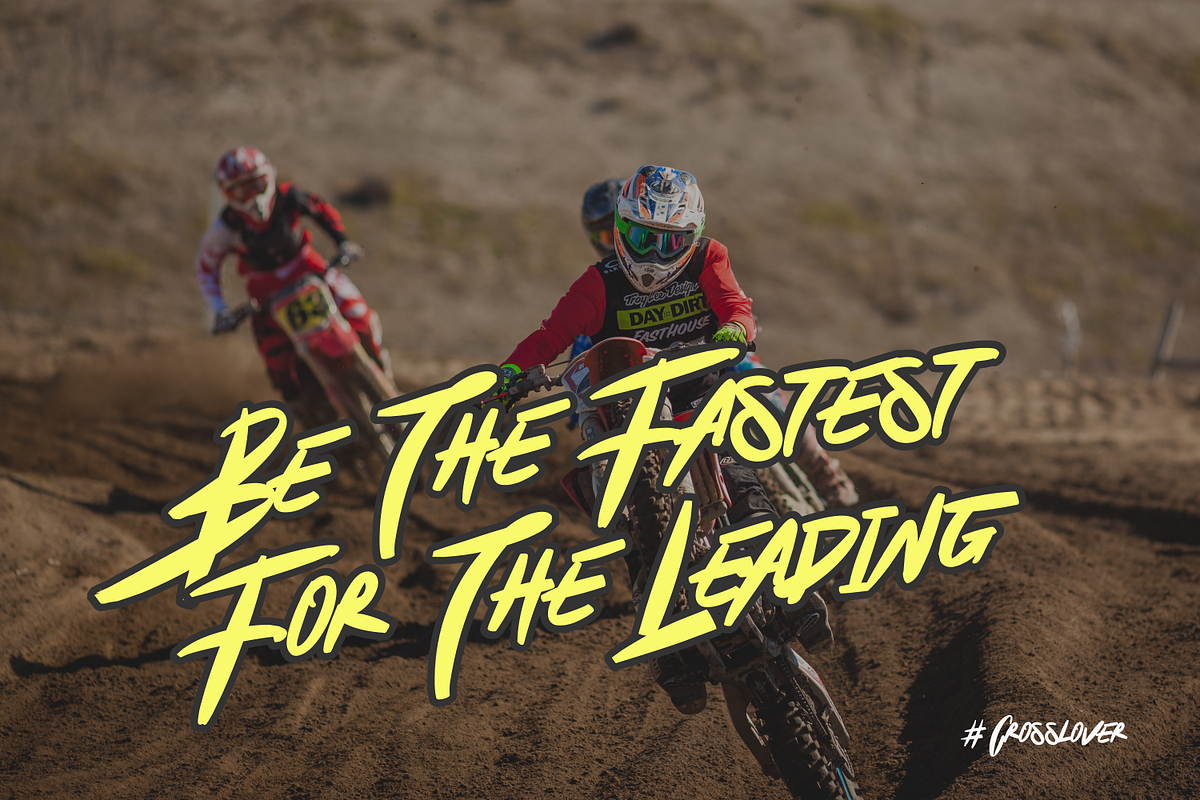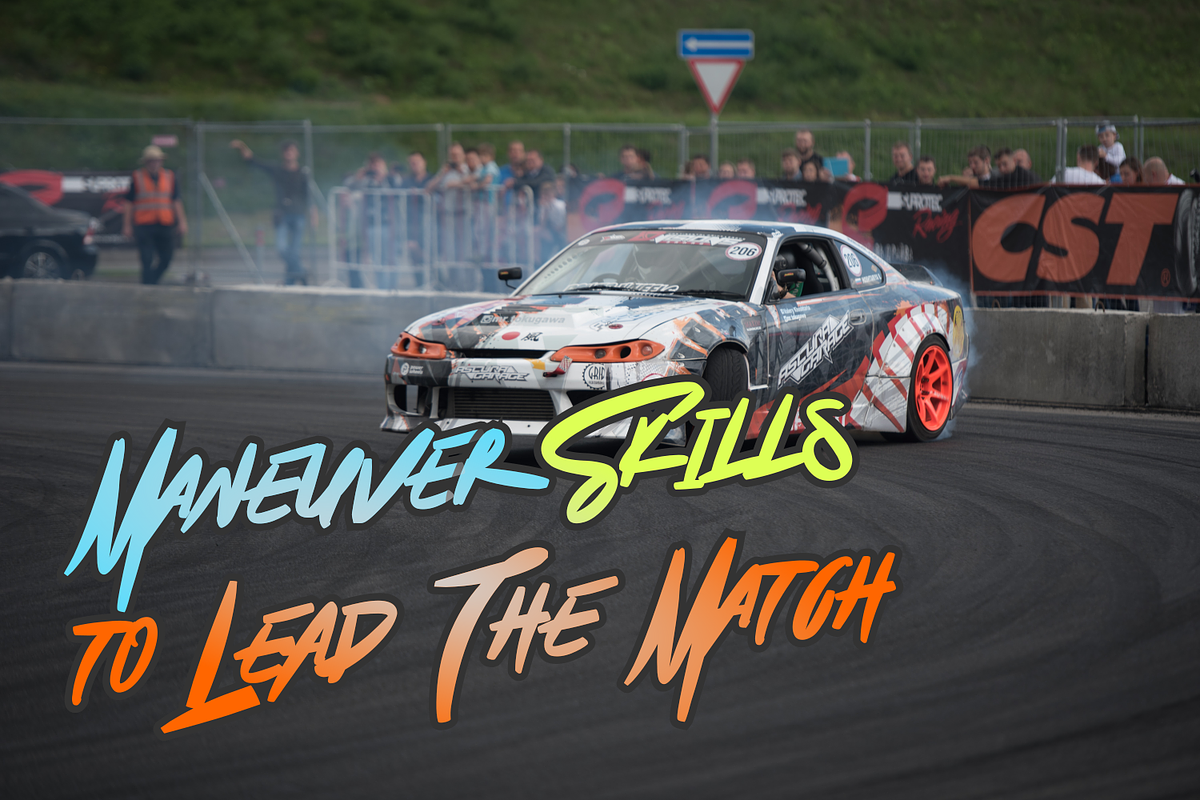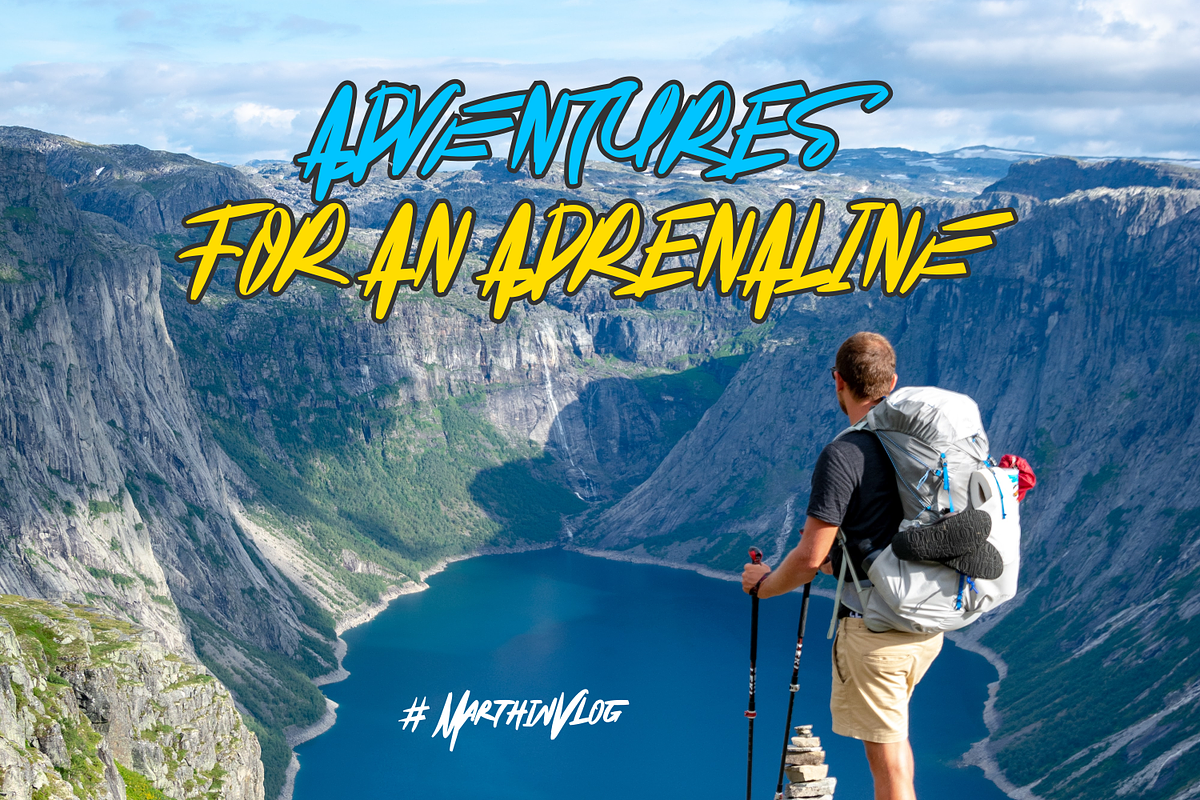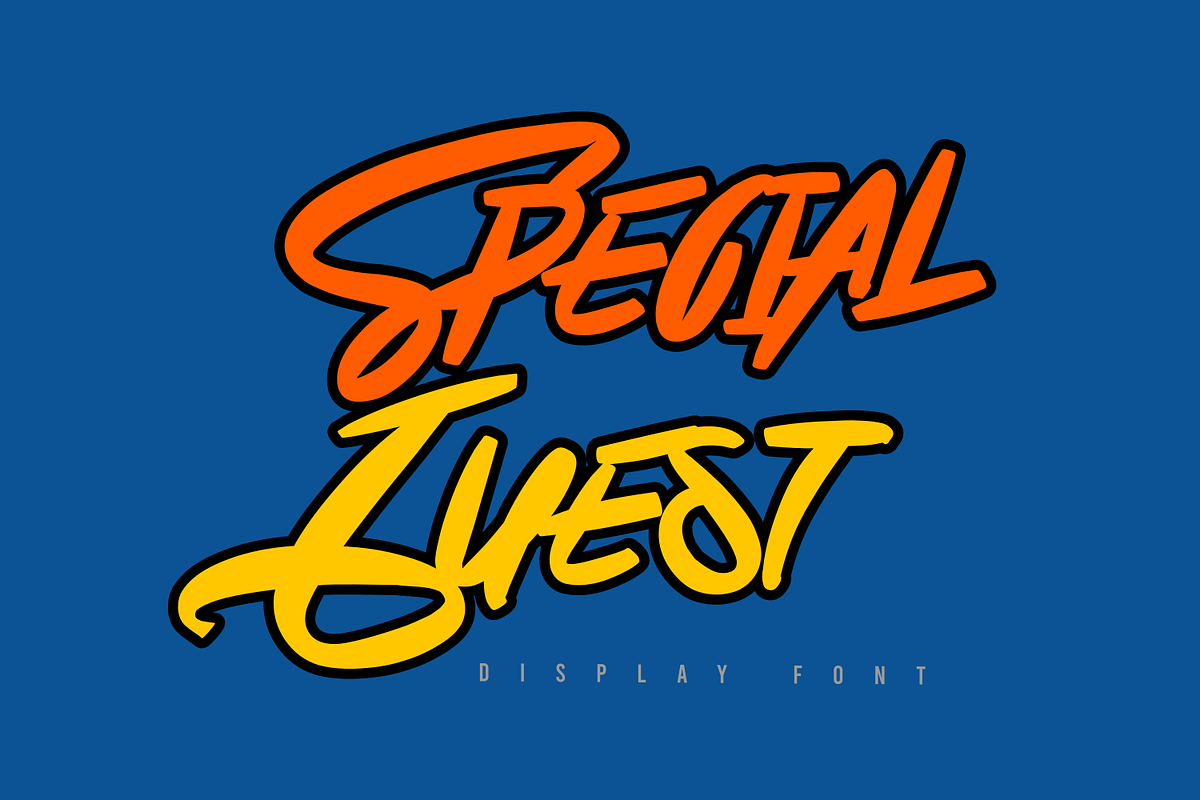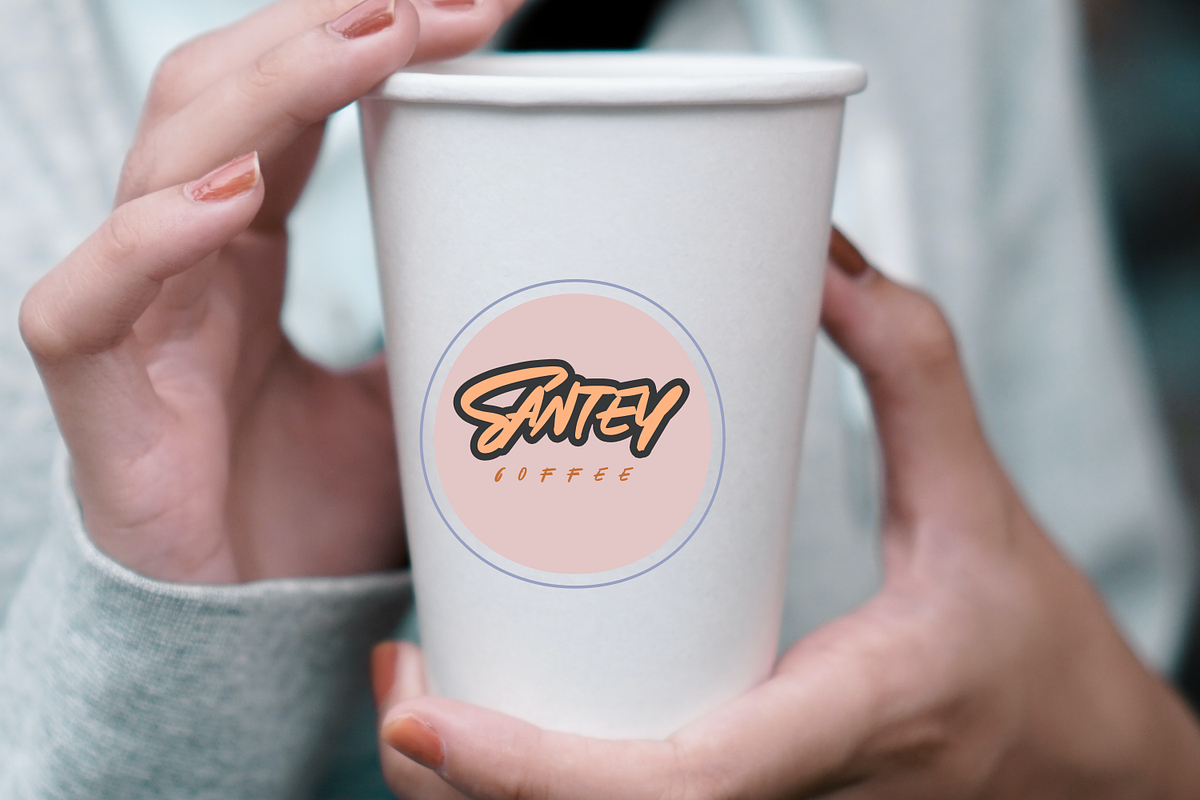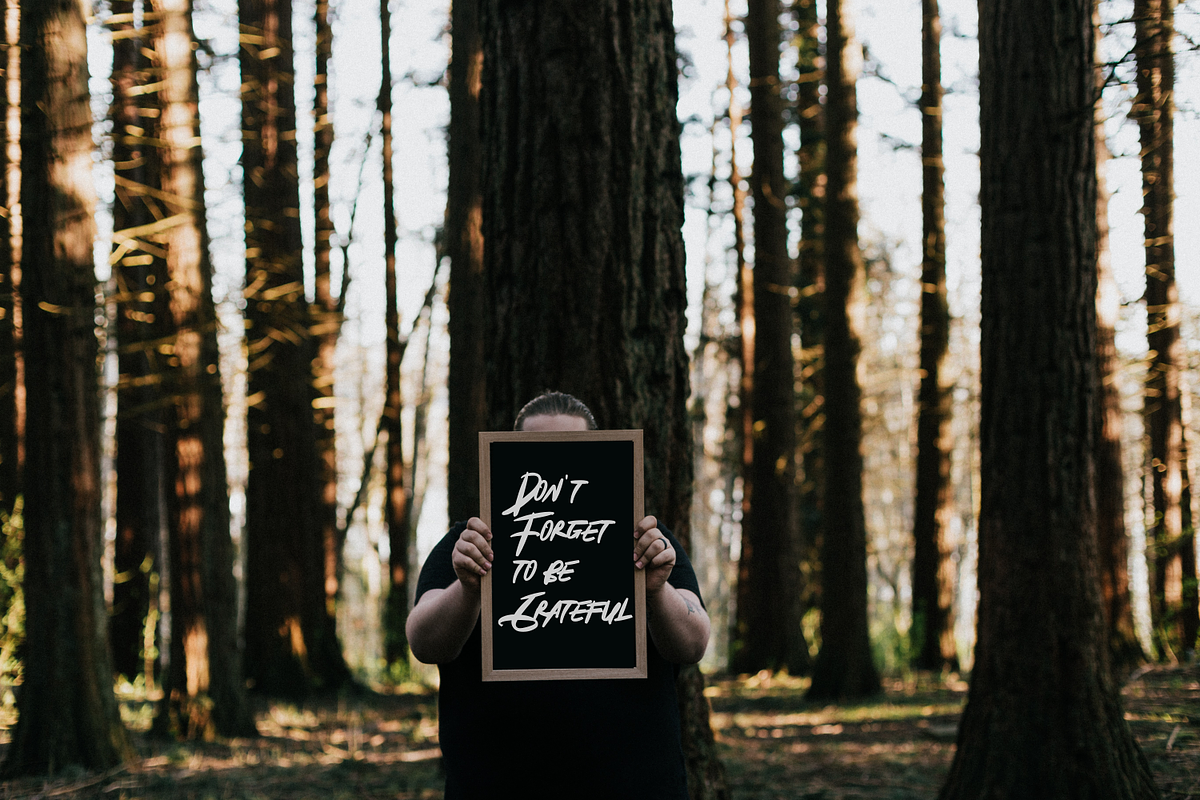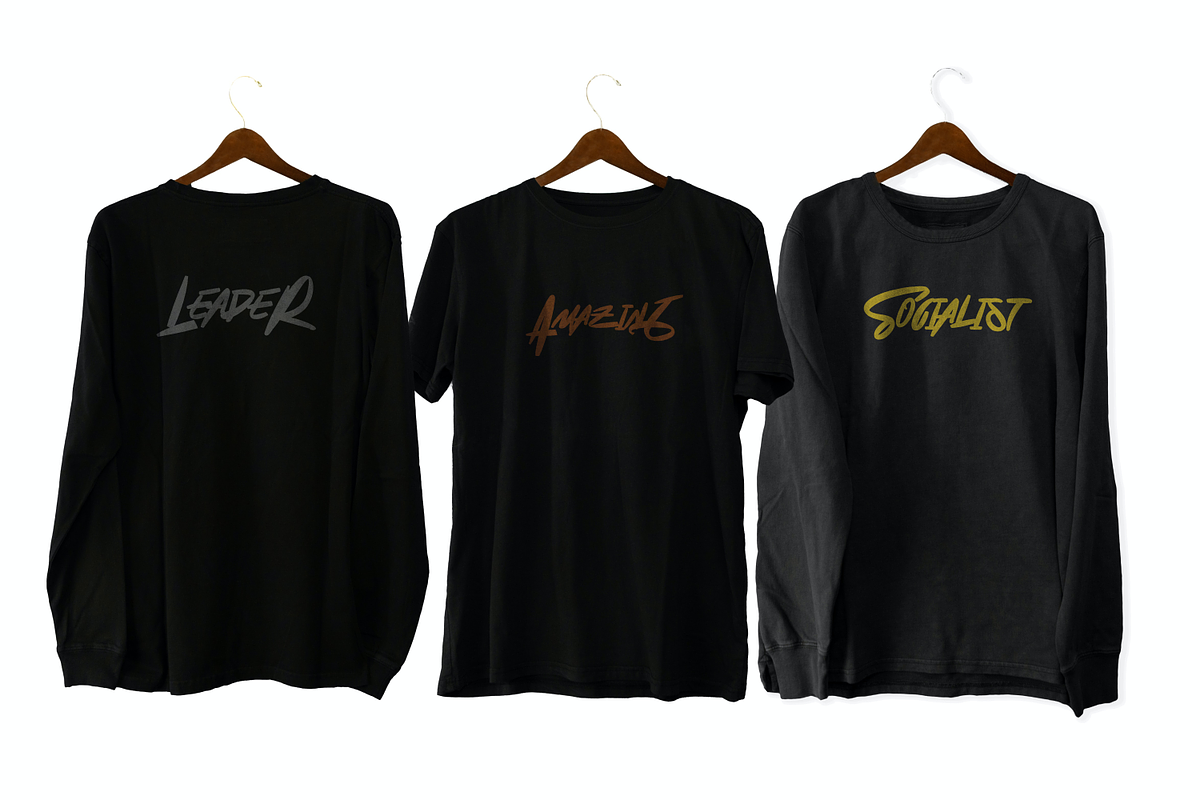
Special Guest
Special Guest is a cool and urban styled display font. This font is suitable for designs such as t-shirts, sportswear, logos, advertisements, clothing, and more.